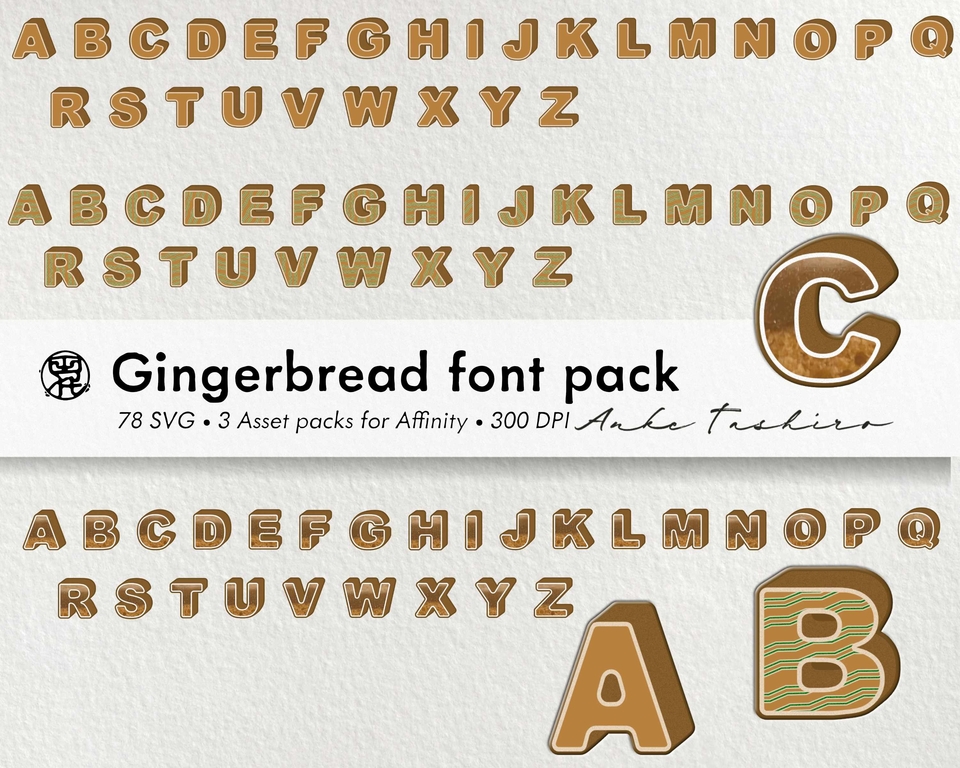
The asset TASHIRO Christmas font pack consist of:
- 26 SVG capital letters in Gingerbread look (no ä, ö, ü and no special characters)
- 26 SVG capital letters in Gingerbread look with green sugar pattern (no ä, ö, ü and no special characters)
- 26 SVG capital letters in Domino look (no ä, ö, ü and no special characters)
This font can be used as headlines, graphic text elements and also for typographical posters.